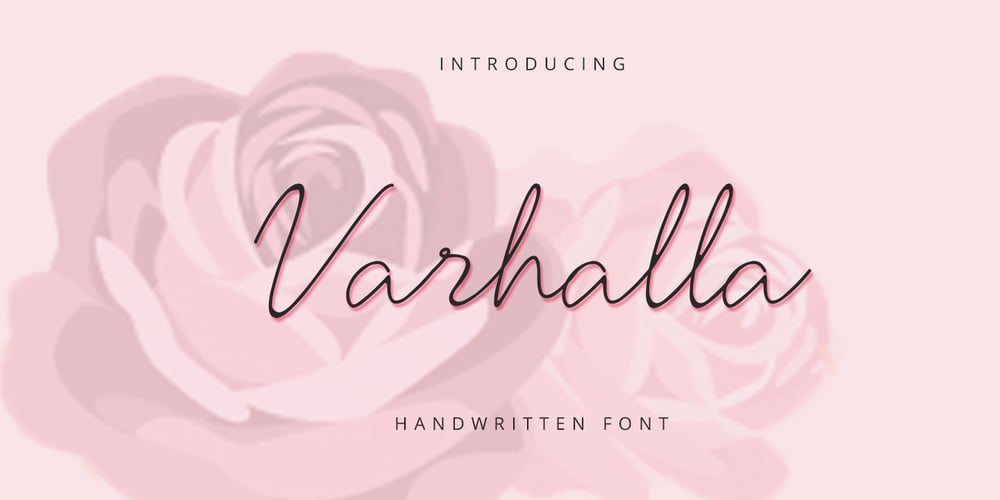
Varhalla Font Family was designed by Amar Lettering and published by Just Lett. Varhalla contains 1 styles and family package options. Varhalla is our new script and handwritten font. We created it with love and care. Varhalla is perfect for signatures, posters, branding, logos, fashion, typography, and more.